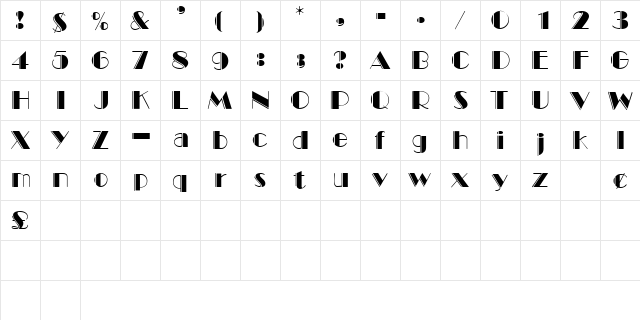
BlackTieEngravedDisplaySSK Regular
Design Context for BlackTieEngravedDisplaySSK Typeface
BlackTieEngravedDisplaySSK is built around its visual character rather than neutral utility — its distinctive forms are designed to make an impression at display sizes.
Font Pairing: Pair with a clean neutral sans-serif for body copy to let BlackTieEngravedDisplaySSK's character lead without overwhelming the composition.
Pro Tip: Treat BlackTieEngravedDisplaySSK as the centrepiece of your typographic hierarchy. One strong heading set in a decorative face can carry an entire layout.